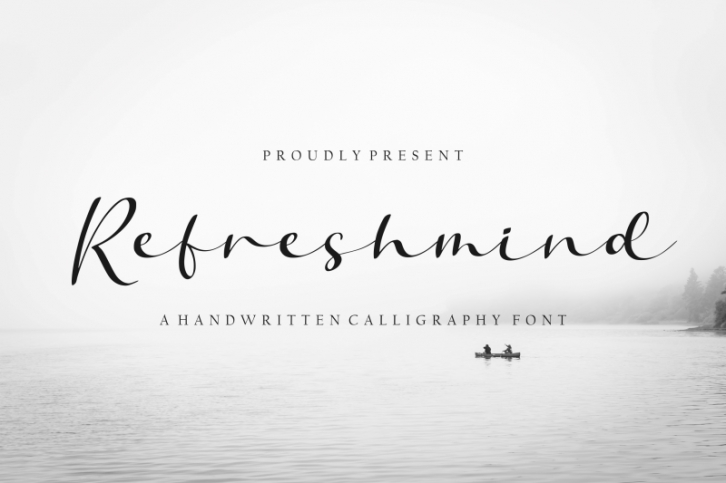
Proudly Present, Refreshmind
Refreshmind a Handwritten Calligraphy Font
Refreshmind is perfect for product packaging, branding project, megazine, social media, wedding, or just used to express words above the background.